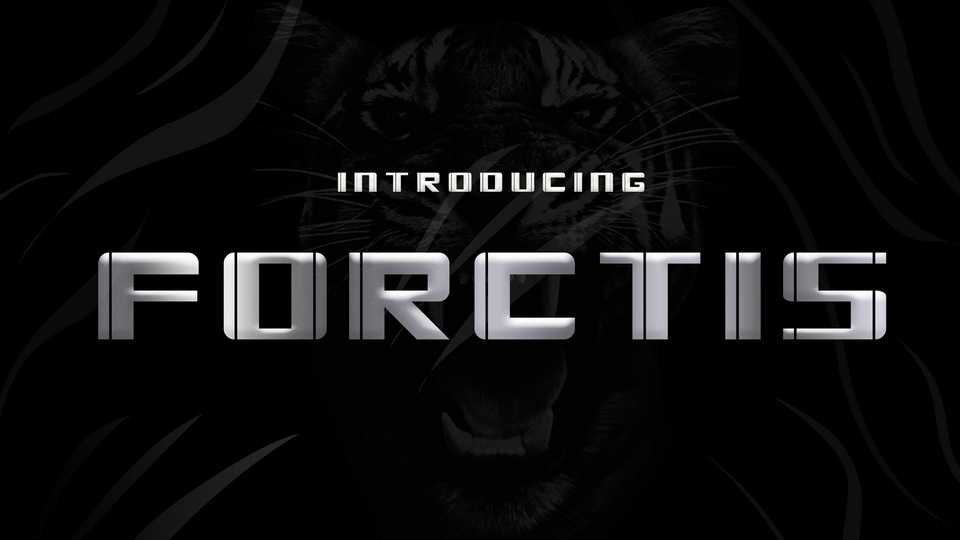
Download Forctis font, a display typeface that has the unique futuristic style with bold and strong compression. Forctis has solid look and balanced on its own way.
Designer: Kanaya Angelique